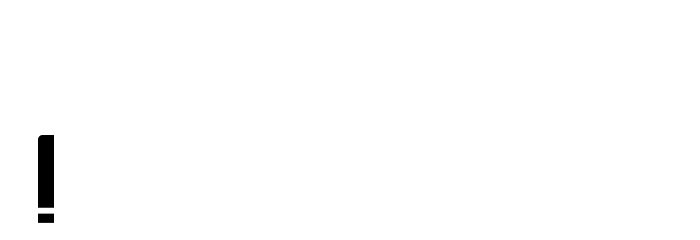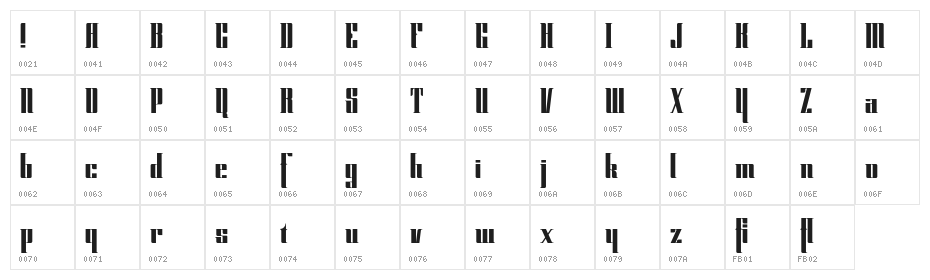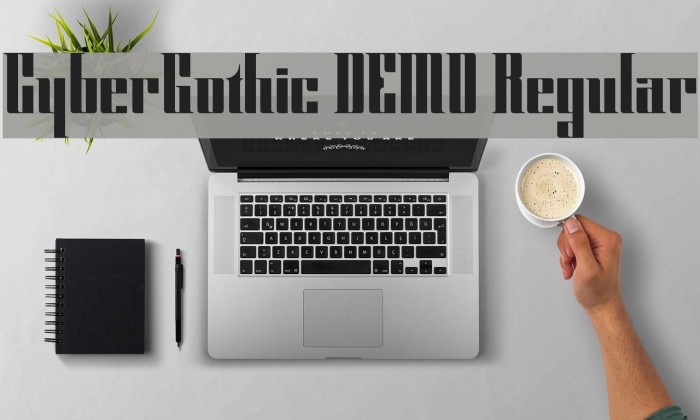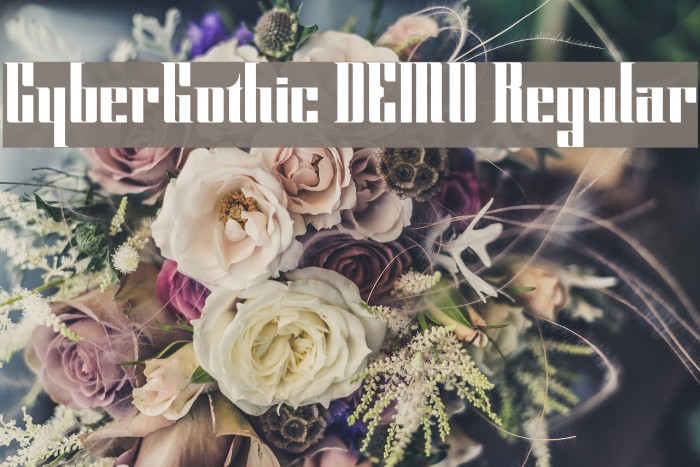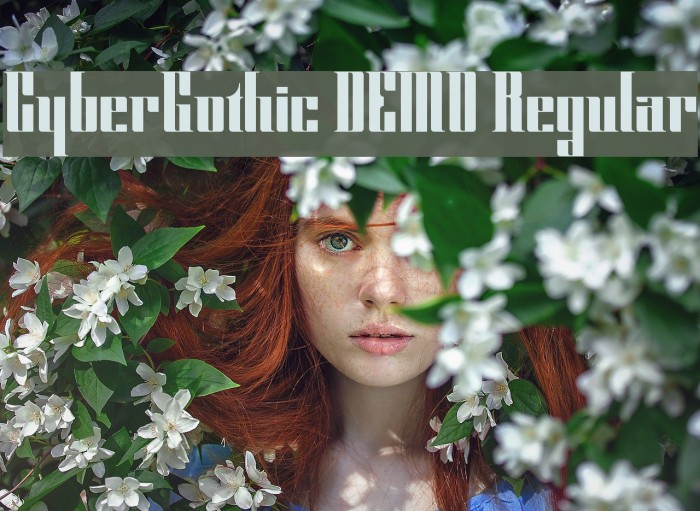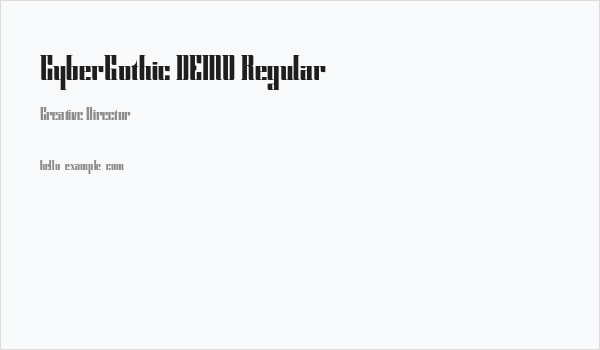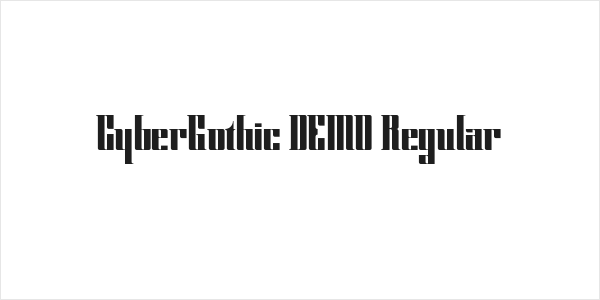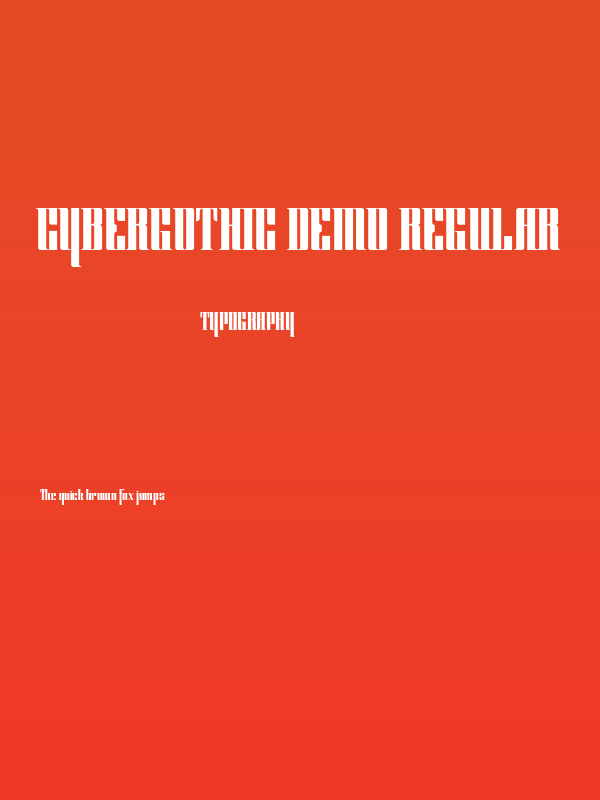
CyberGothic DEMO Regular Font
CyberGothic DEMO Regular Description
This font features a bold, striking design with a distinctly modern and futuristic aesthetic. The characters are tall and narrow, with sharp angles and a geometric structure that gives them a strong presence. The uppercase letters are particularly imposing, with a uniform height and consistent stroke width that enhances their readability. The lowercase letters maintain the same angular style, providing a cohesive look across the font. The numbers and special characters are designed to match the overall style, ensuring a seamless integration in any text. The font's unique appearance makes it ideal for projects that require a bold statement or a modern, edgy feel.